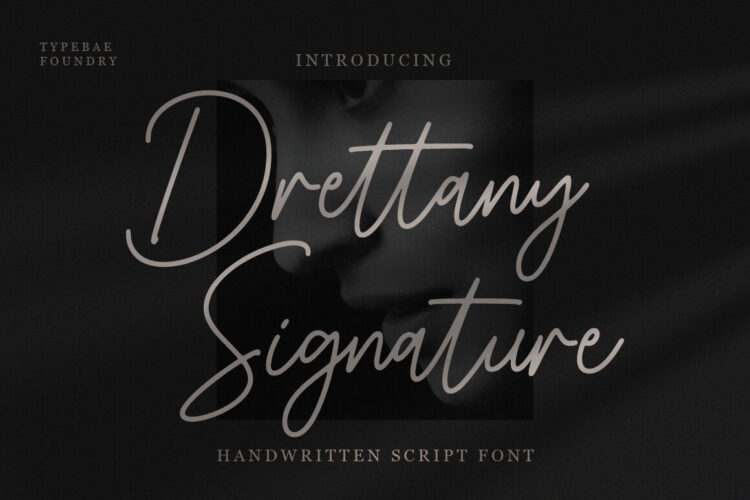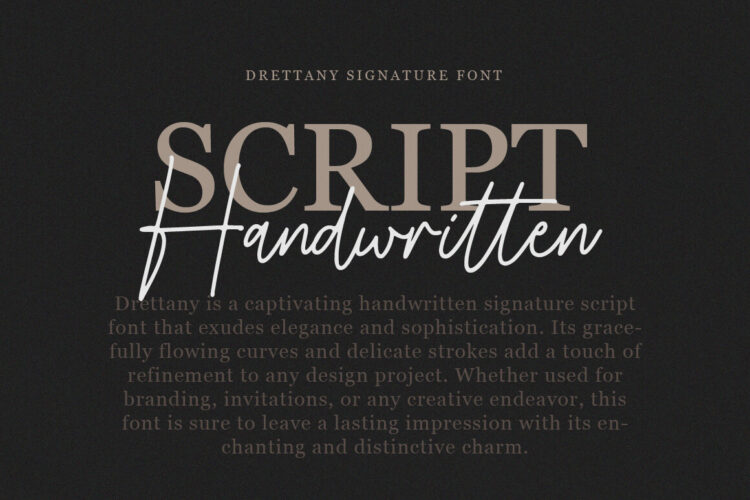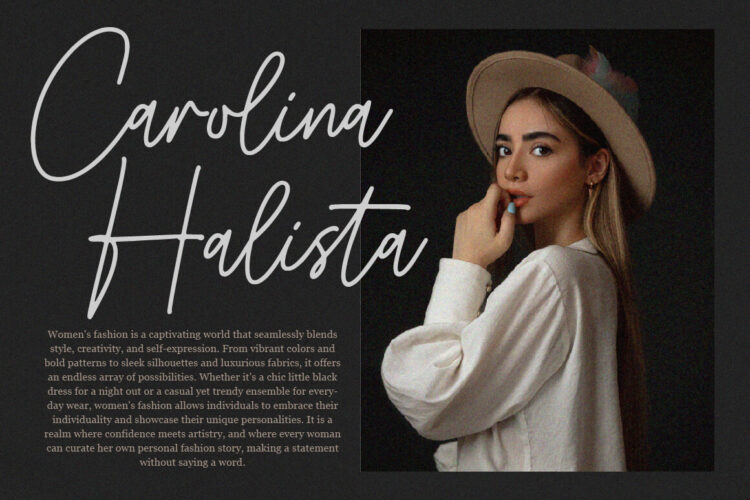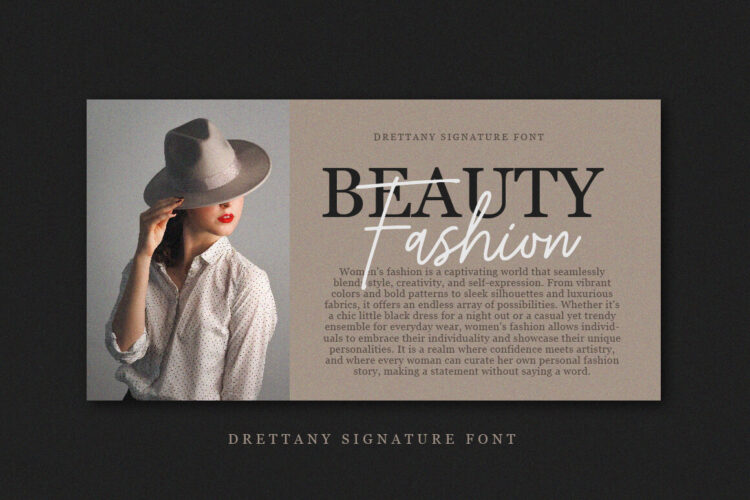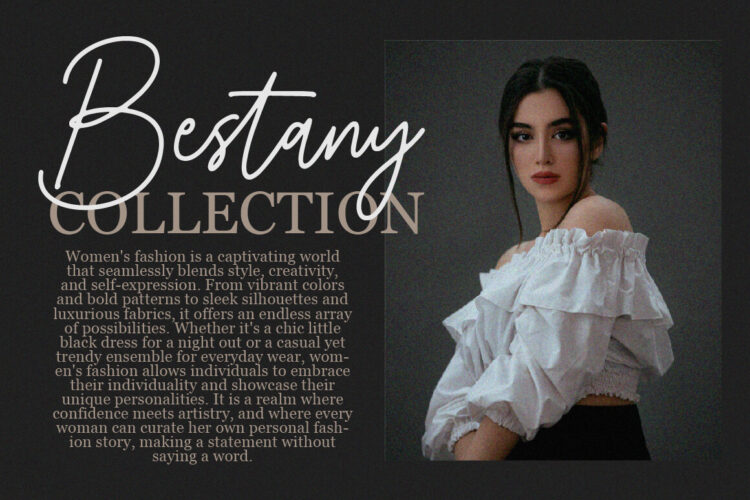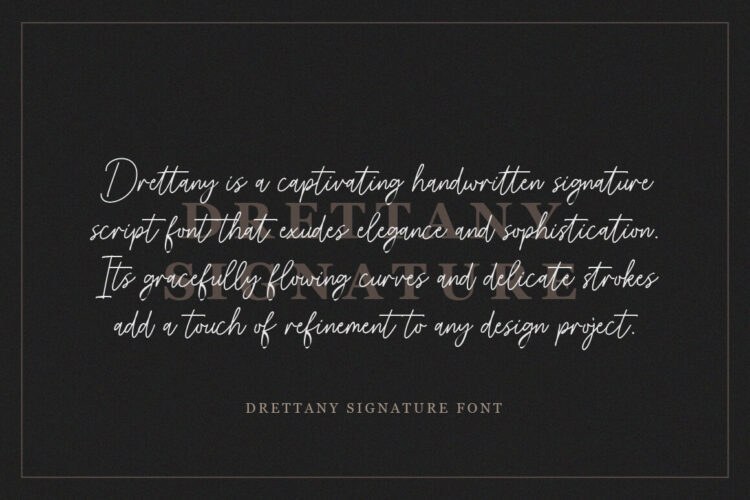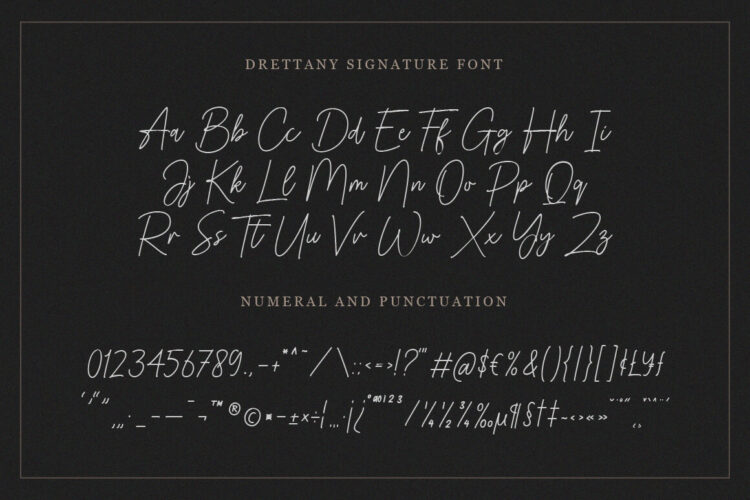
Drettany Signature Font is a captivating handwritten signature script font that exudes elegance and sophistication. Its gracefully flowing curves and delicate strokes add a touch of refinement to any design project. Whether used for branding, invitations, or any creative endeavor, this font is sure to leave a lasting impression with its enchanting and distinctive charm.
- Full alphabet and punctuation
- Ligature and swashes feature
- Multilingual Support